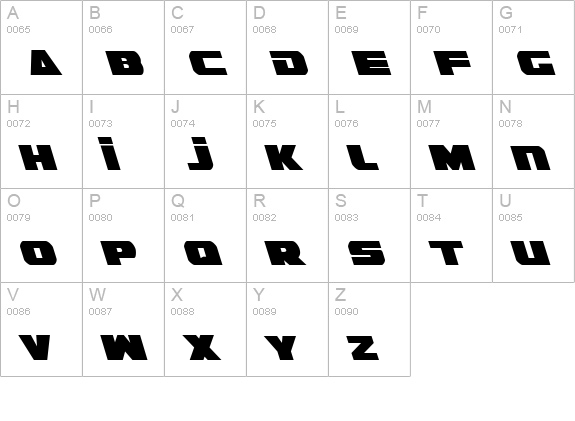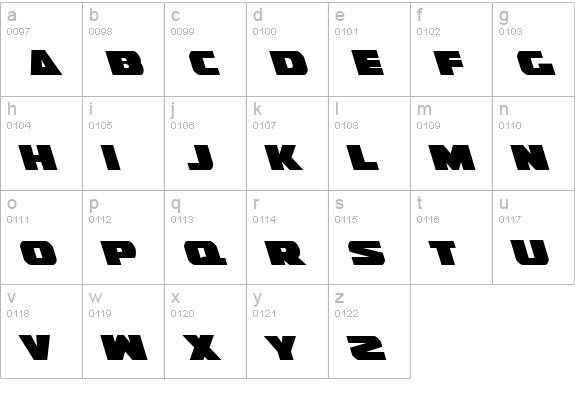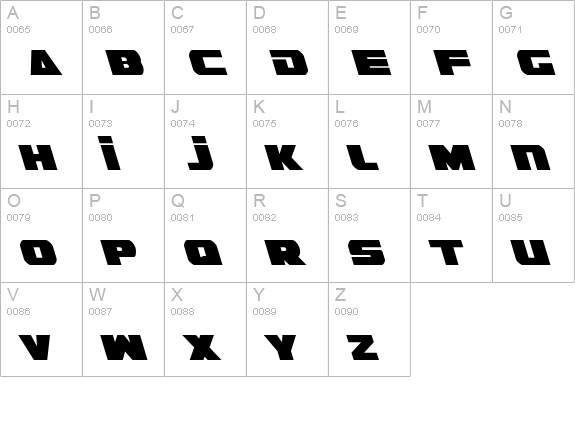
Guardian Leftalic Font Details
Guardian Leftalic font is a sleek and modern typeface with a touch of elegance. Its slanted design adds a dynamic and stylish flair to any design project, making it perfect for headings, titles, and other display purposes. The graceful curves and clean lines of Guardian Leftalic bring a sense of sophistication and professionalism to your work. Best of all, Guardian Leftalic font is available for free download at FontsMarket.com. This means you can easily access this high-quality font without any cost, making it a valuable addition to your font library. Whether you are a designer, student, or hobbyist, Guardian Leftalic font offers a versatile and eye-catching option for your creative projects. Download it today and elevate your designs with this beautiful and freely available typeface.